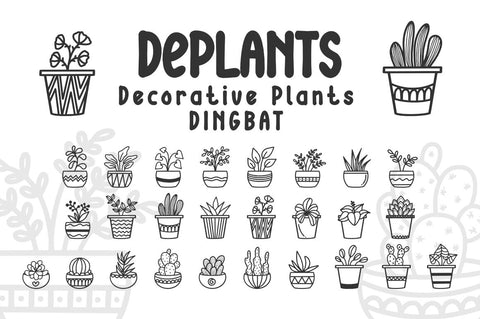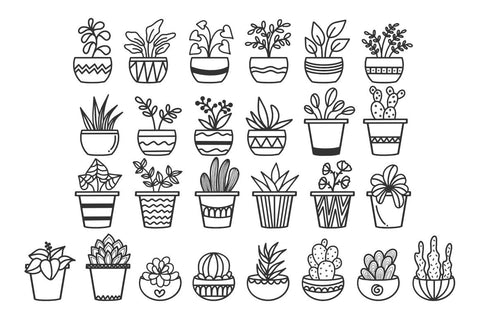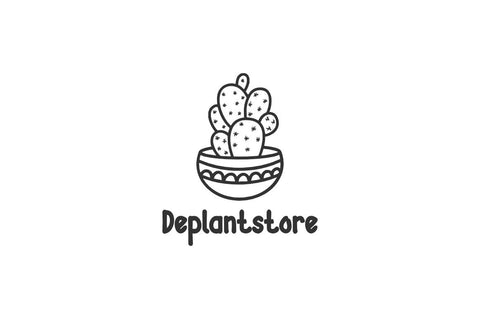
Deplants - Floral Dingbat Font
Deplants is a useful and beautiful dingbats font. Whether you're using it for crafting, digital designing, presentations or greeting cards making, it's perfect!